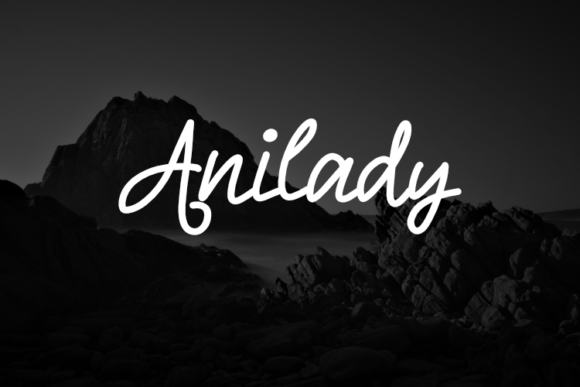
Remember the thrill of sitting in front of your computer, surrounded by endless possibilities, waiting for the perfect font to bring your design to life? That’s where the magic happens, and that’s exactly what the Anilady Font is designed to do – to infuse elegance and charm into your creations.
As a versatile and dynamic font, Anilady is perfect for adding a unique character to your clothing, t-shirt designs, and other products. Its compatibility with every design and software makes it an invaluable tool for designers. With Anilady Font, you can easily transform ordinary into extraordinary, giving your creative voice a chance to speak volumes. Whether you’re working on a personal project or a professional assignment, this font is sure to leave a lasting impression.
Anilady Font Key Features
- Unique Characteristics: The font features a unique blend of traditional and modern elements, with intricate details and ornaments, making it suitable for a wide range of design applications.
- Design Style: The font is characterized by its elegant and sophisticated design style, with a touch of vintage flair, making it suitable for luxury, fashion, and cultural design projects.
Anilady Font Review
I recently had the chance to work with the Anilady font, and I have to say it’s a pretty interesting typeface. ✨ One of the things that stands out is its unique, elegant feel, perfect for creating a sophisticated and refined look. It’s also quite versatile, working well for both digital and print applications.
Here are some of the key features that make Anilady Font shine:
- ✨ Elegant, refined feel that’s perfect for sophisticated designs
- ✨ Versatile and works well for both digital and print applications
- ✨ Beautiful, intricate details that add character to any design
However, as with any font, there are some limitations to consider:
- ⚠️ Limited character set, which may be a challenge for non-Latin scripts or extended character sets
- ⚠️ May not be suitable for bold or all-caps text, as the font can appear distorted
- ⚠️ Requires careful kerning and spacing to achieve the best results
Overall, I think Anilady Font is a great choice for designers who want to create a unique and sophisticated look. While it may have some limitations, the benefits far outweigh the drawbacks. With careful use and attention to detail, this font can be a real showstopper in your designs.
Tips for Getting the Most Out of Anilady Font
To get the most out of Anilady Font, use it for:
– Creating elegant and sophisticated designs.
– Adding a touch of femininity to your designs.
– Pairing with bold and modern fonts for a striking contrast.
– Using in combination with high-quality images for a visually appealing design.
Q: What is the font’s character set and language support?
Anilady Font includes a comprehensive character set that supports multiple languages, including Latin, Cyrillic, and Greek. It also includes a range of punctuation and symbol characters.